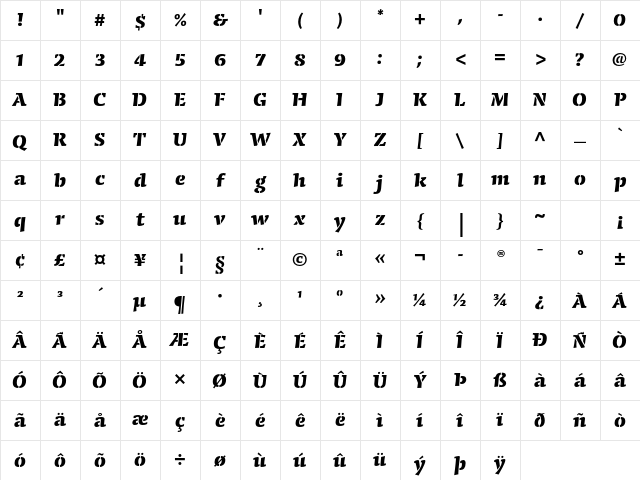
Complete Conga Brava Stencil Std Bold glyph index. Displaying only characters natively supported by Conga Brava Stencil Std Bold font.
Conga Brava Stencil Std borrows the utilitarian aesthetic of stencil lettering, with its characteristic cutaways and no-frills construction lending an industrial edge. Its bold stroke weight gives it real presence on the page.
Pro Tip: Use Conga Brava Stencil Std at large sizes on packaging, posters, or apparel where the stencil cutaways read clearly. Avoid small sizes where those gaps become visual noise.